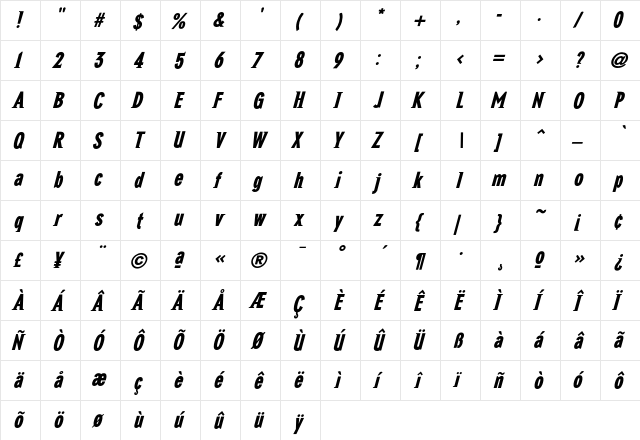
NewGlobalHeavy Italic
Design Context for NewGlobalHeavy Typeface
NewGlobalHeavy offers clean, dependable letterforms without strong stylistic allegiance, making it a practical choice for designers who need flexibility. Its italic angle brings a sense of urgency and motion to the letterforms.
Pro Tip: Use NewGlobalHeavy for emphasis, pull quotes, and subheadings where its slanted energy can add rhythm to the layout.